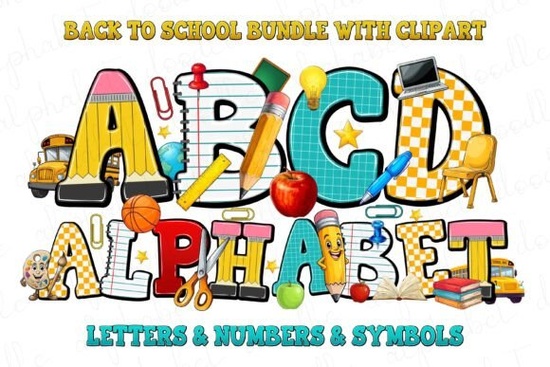
Finding the right typeface for school-themed projects can make or break a design. The Back to School Font from Creative Fabrica is a bold, colorful typeface built specifically for kids' projects, educational materials, and playful branding. If you're a designer, crafter, or small business owner looking for a font that feels fun without being hard to read, this one is worth a close look.
What Makes the Back to School Font Different?
Plenty of fonts claim to be playful, but most end up looking messy or childish in the wrong way. This typeface takes a different approach. It uses strong letter shapes with vibrant color details that stand out on screen and in print. The design feels energetic without sacrificing clarity which matters when you're making materials that kids (and parents) actually need to read.
The letterforms have a chunky, confident weight that works well at both large and small sizes. Whether you're designing a poster for a classroom wall or a thumbnail for an Etsy listing, the characters hold up. If you enjoy working with colorful font styles that catch the eye, this one fits right into that category.
What Types of Projects Work Best With This Font?
This font is a solid match for a wide range of creative work. Here are some of the most common uses designers and sellers reach for it for:
- Back-to-school supplies notebooks, folders, stickers, pencil cases
- Classroom decorations bulletin boards, door signs, name tags
- Kids' party invitations birthday themes, school milestone events
- Print-on-demand products t-shirts, tote bags, water bottles
- Digital downloads worksheets, flashcards, planner inserts
- Social media graphics Instagram posts, Facebook ads, Pinterest pins
- Small business branding tutoring services, kids' clothing lines, educational apps
Because of its bold structure, it also pairs nicely with simpler sans-serif or handwritten fonts when you need a headline-and-body combination.
Is This Font Easy to Use for Beginners?
One thing to keep in mind: because the font has colorful, decorative elements, it reads best at larger sizes. For body text or long paragraphs, pair it with a cleaner typeface. Use the Back to School font for headers, titles, and short labels where its personality can shine.
How Does It Compare to Other School-Themed Fonts?
Creative Fabrica has a large library of themed typefaces, and school-inspired options are no exception. What sets this one apart is its balance between boldness and readability. Some decorative fonts go too far with flourishes and end up looking cluttered. Others are so plain they feel generic. This font lands in a useful middle ground it has enough character to feel special, but it stays clean enough for practical use.
If you're working on a collection of school-themed designs, consider mixing this font with complementary styles. A chalkboard-style texture, a simple sans-serif for supporting text, and this bold typeface as your focal point can create a cohesive, polished look across multiple products.
Who Is This Font a Good Fit For?
This typeface works well for anyone creating content tied to education, kids, or school seasons. Specifically:
- Teachers making printable classroom materials
- Etsy sellers offering school-themed digital downloads
- Print-on-demand designers building back-to-school product lines
- Parents creating custom labels or party supplies
- Small business owners in the children's product space
- Crafters using Cricut or Silhouette for DIY projects
Tips for Getting the Most Out of This Font
Here are a few practical suggestions based on common design situations:
- Use high contrast backgrounds The colorful details show up best on white or light-colored surfaces.
- Don't reduce the size too much Keep it at 24pt or above to maintain readability.
- Pair it with simple fonts Let this one be the star; use a neutral font for longer text.
- Test before printing Run a small test print to check how the colors render on your specific printer or material.
Quick Checklist Before You Buy
- Confirm the font works with your design software
- Think about what other fonts you'll pair it with
- Plan your color scheme to complement the font's style
If you're building a back-to-school product collection or designing educational materials, this typeface gives you a strong, cheerful starting point that works across print and digital formats.